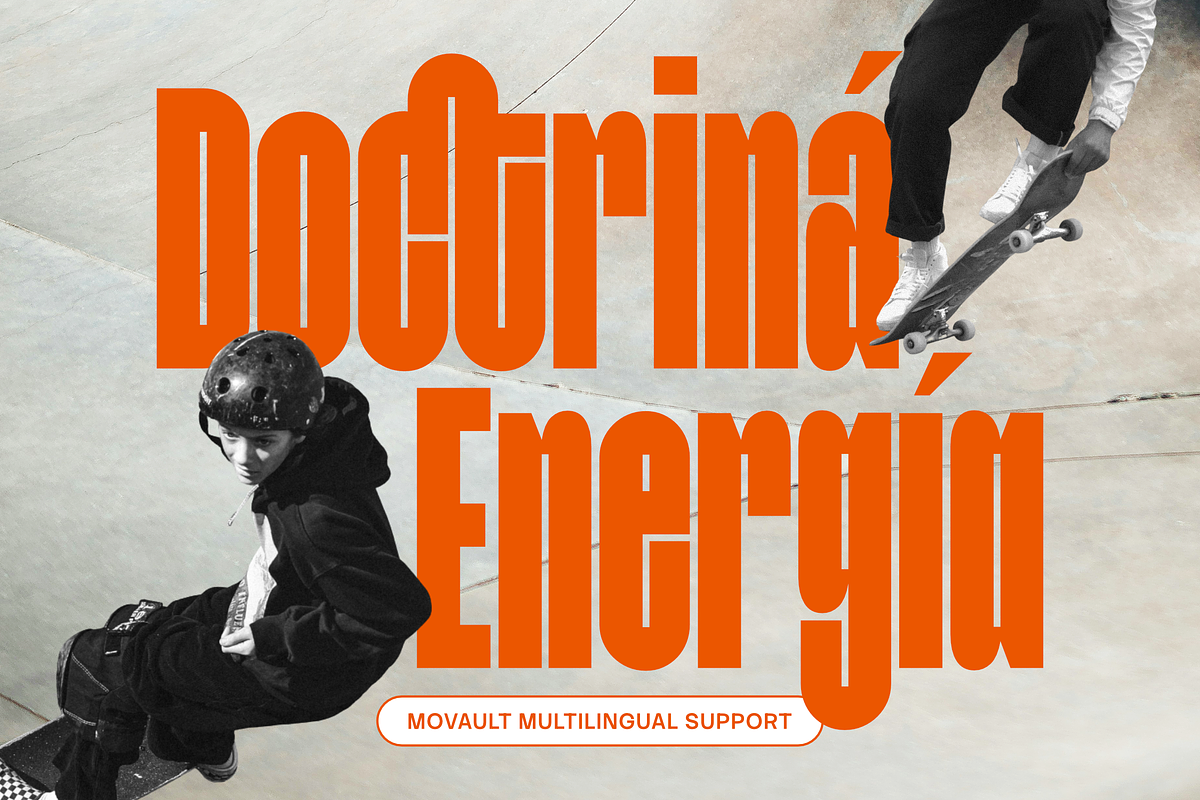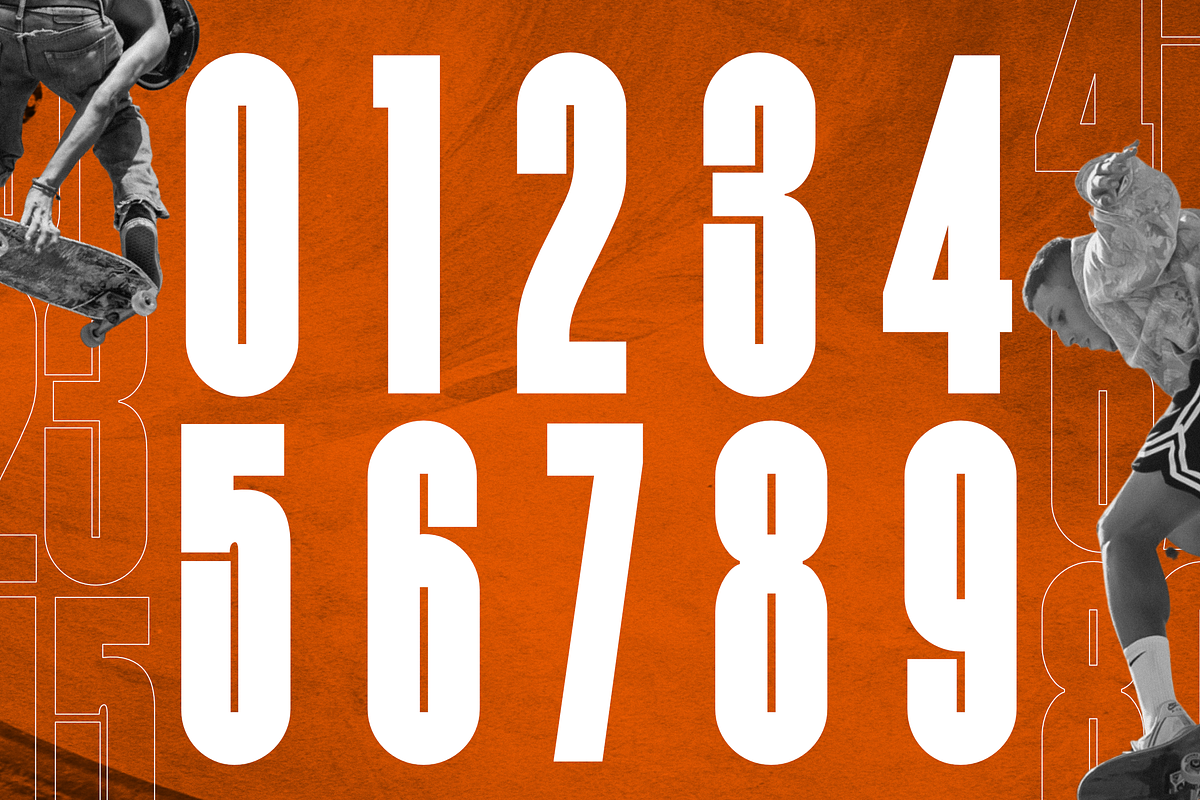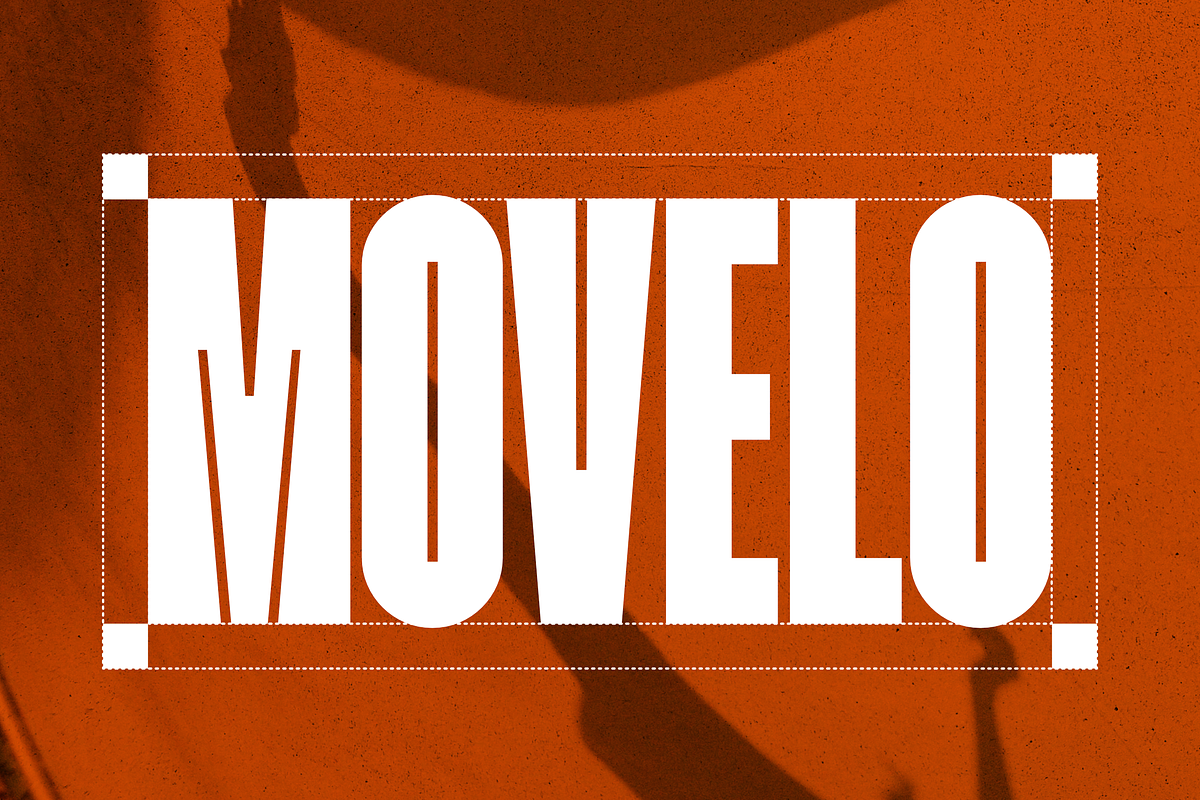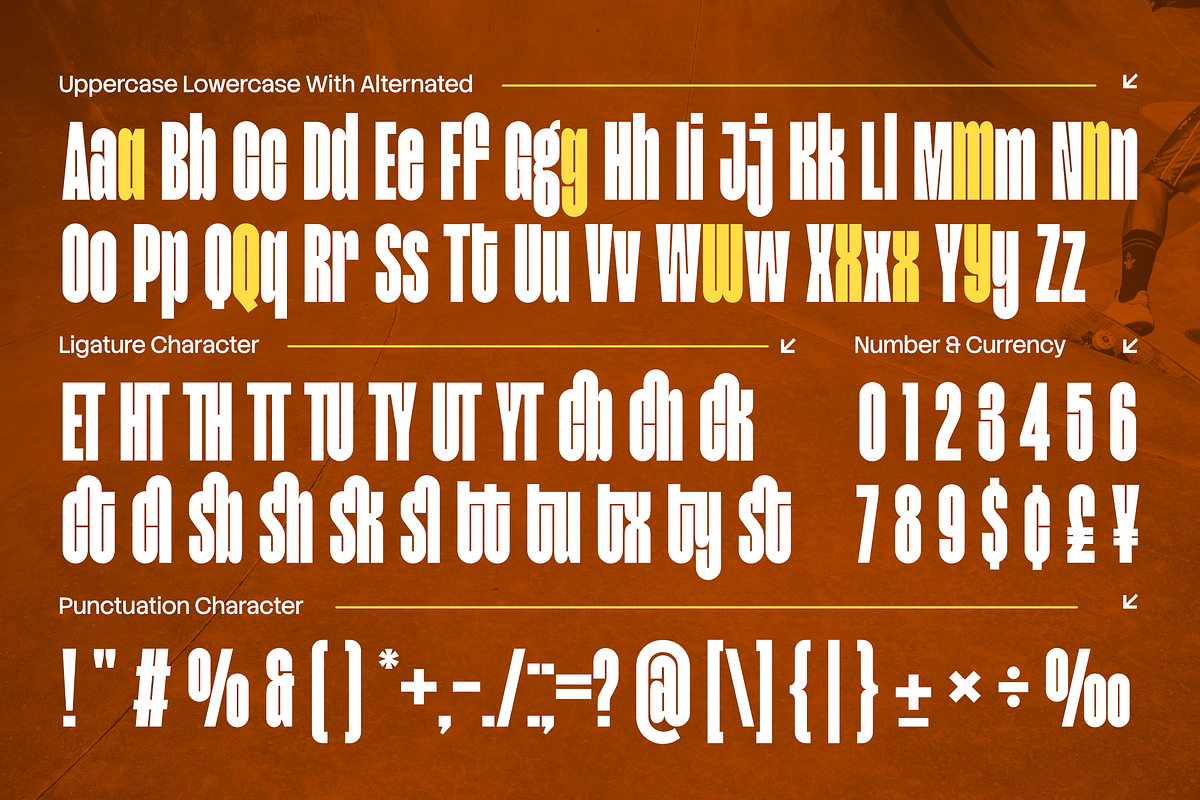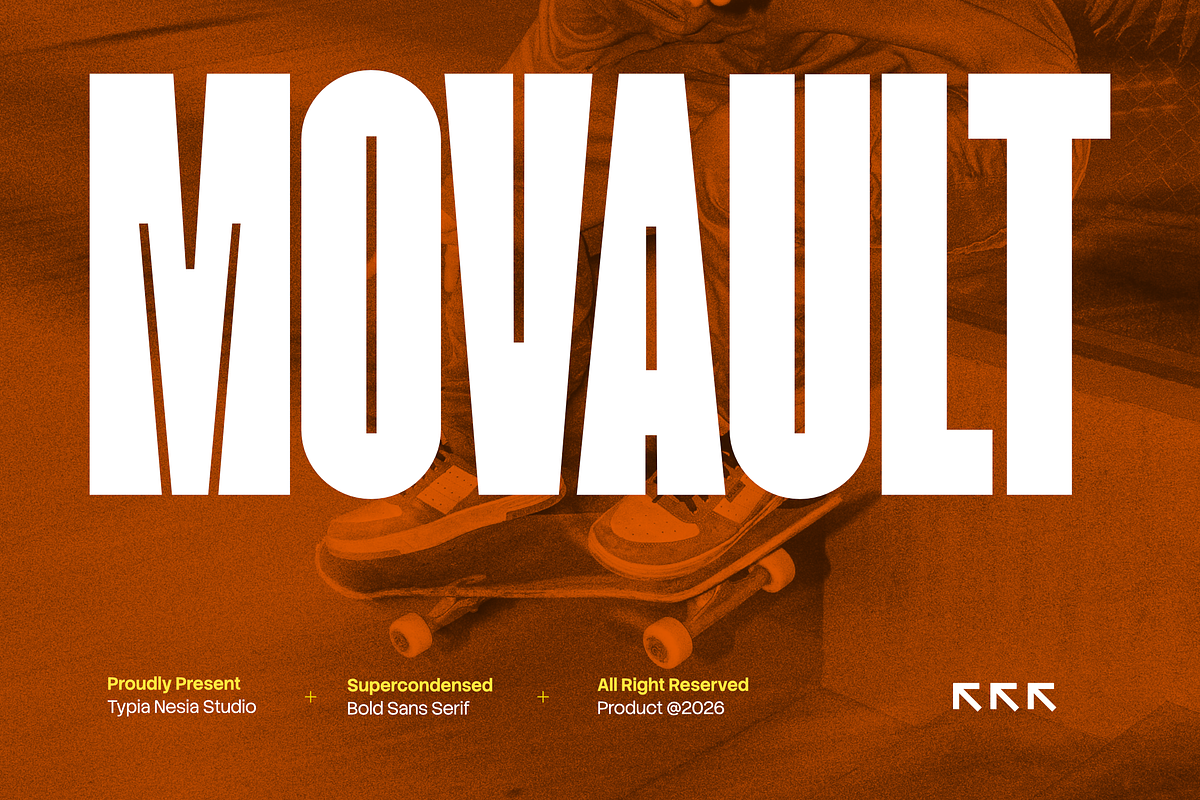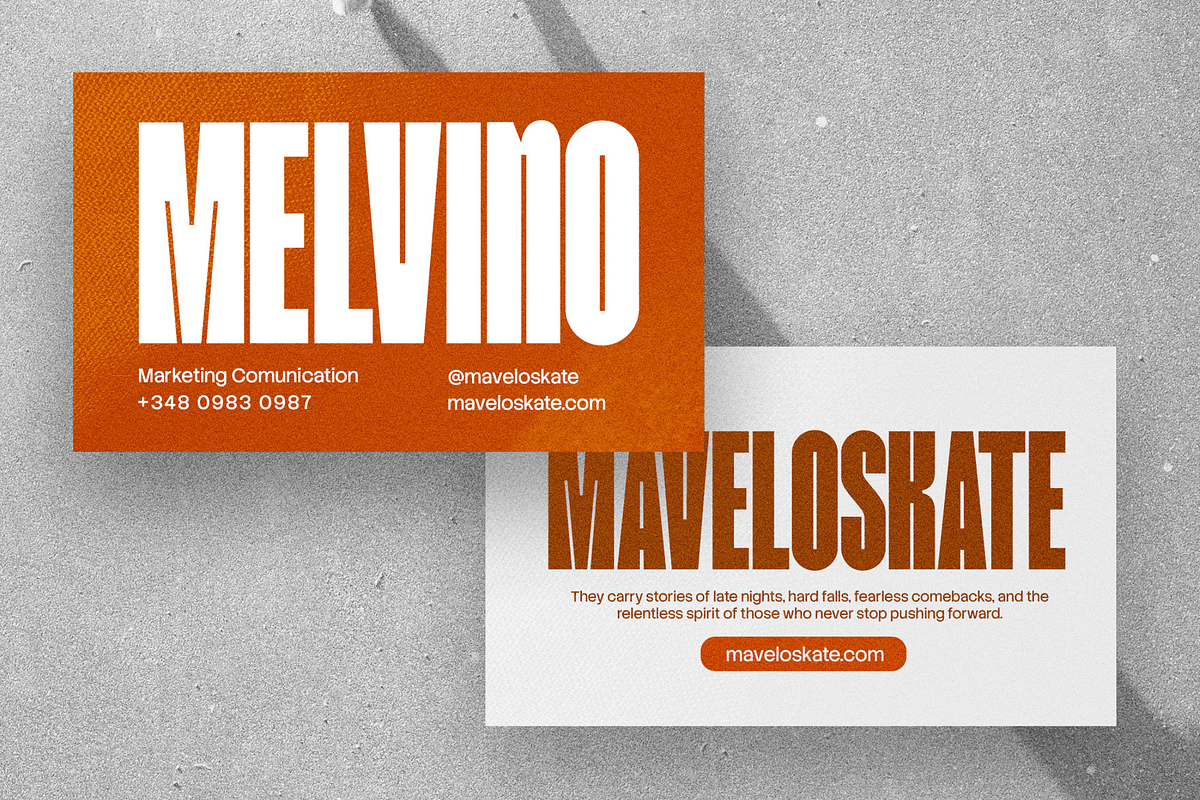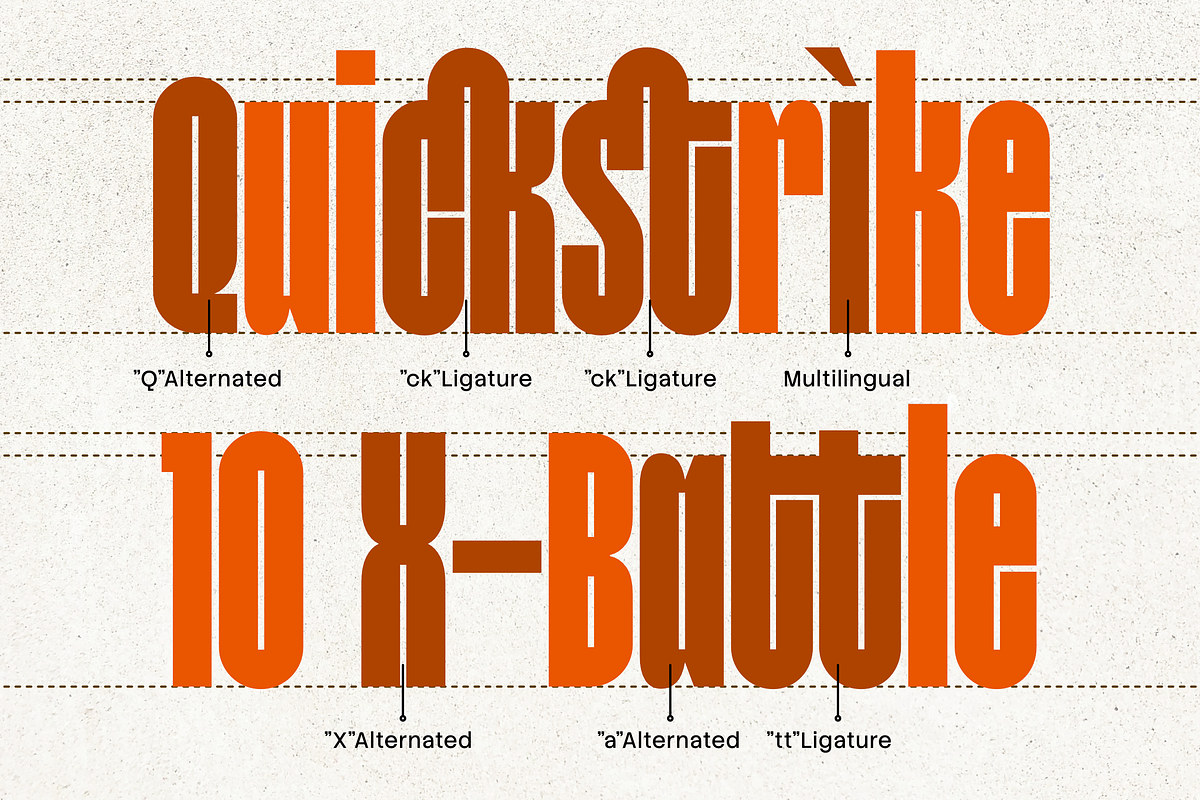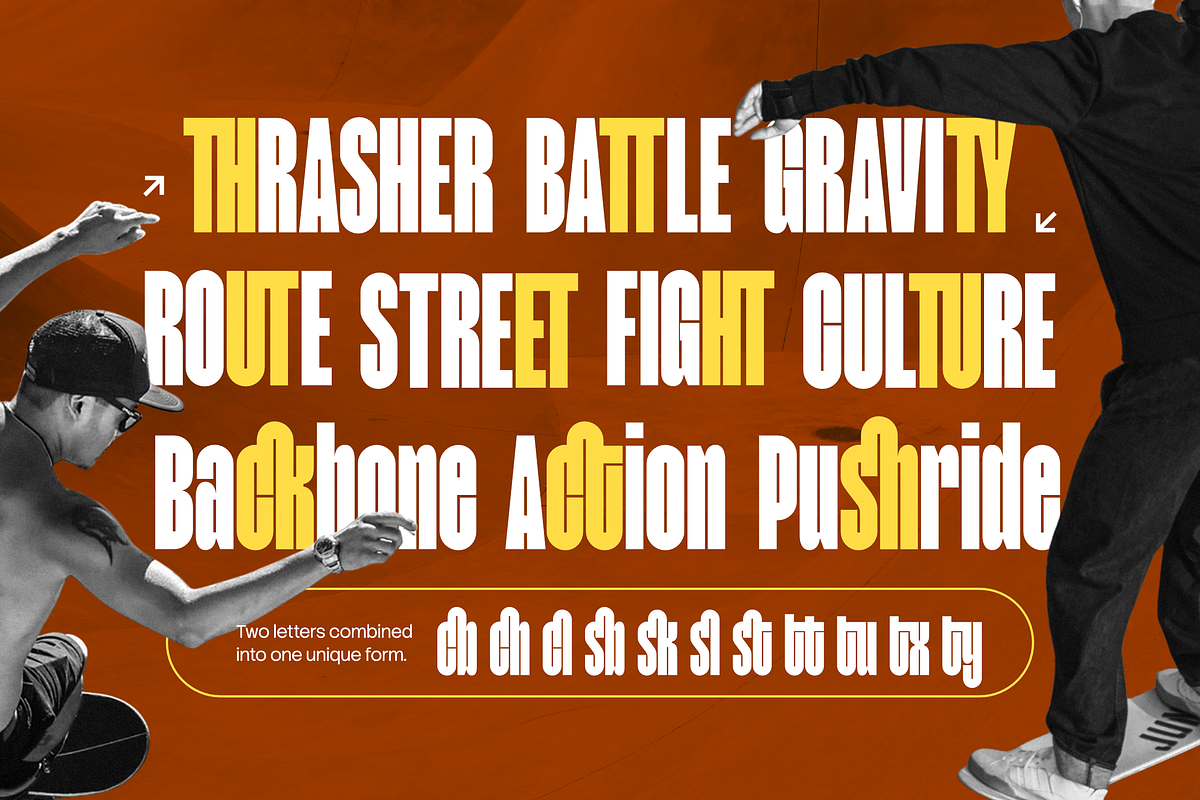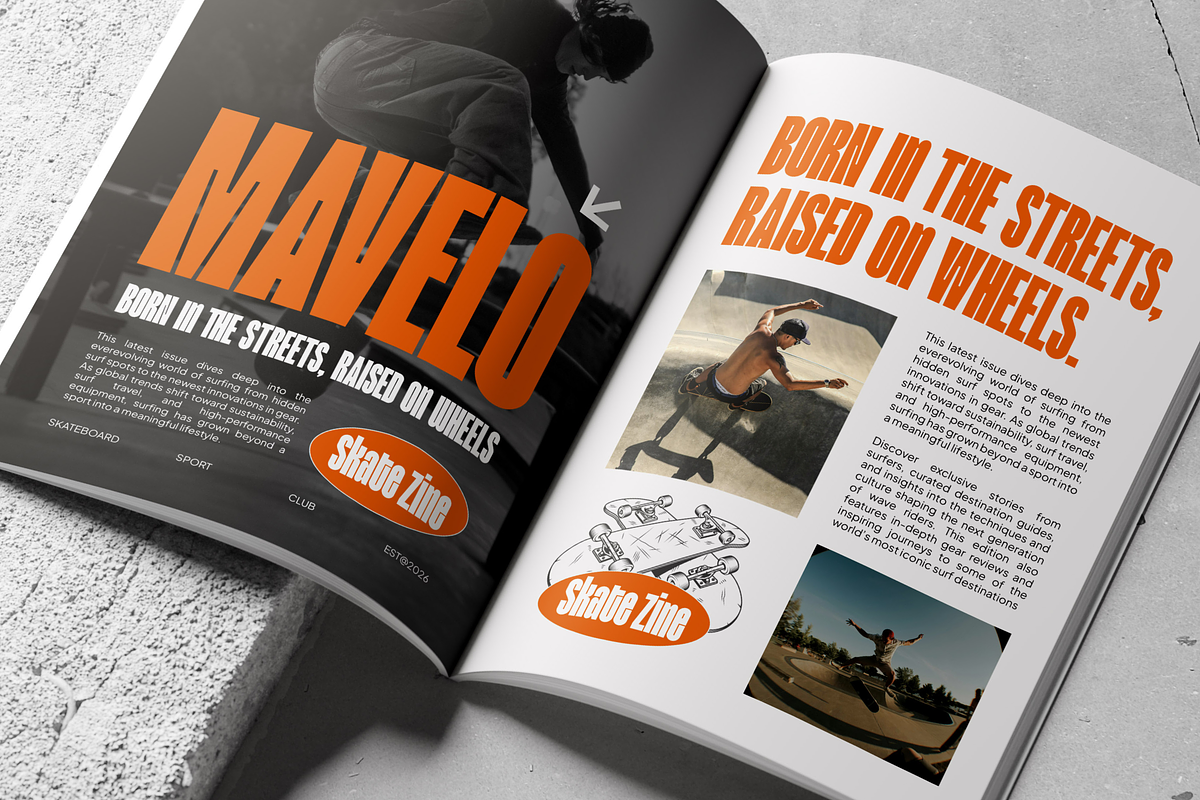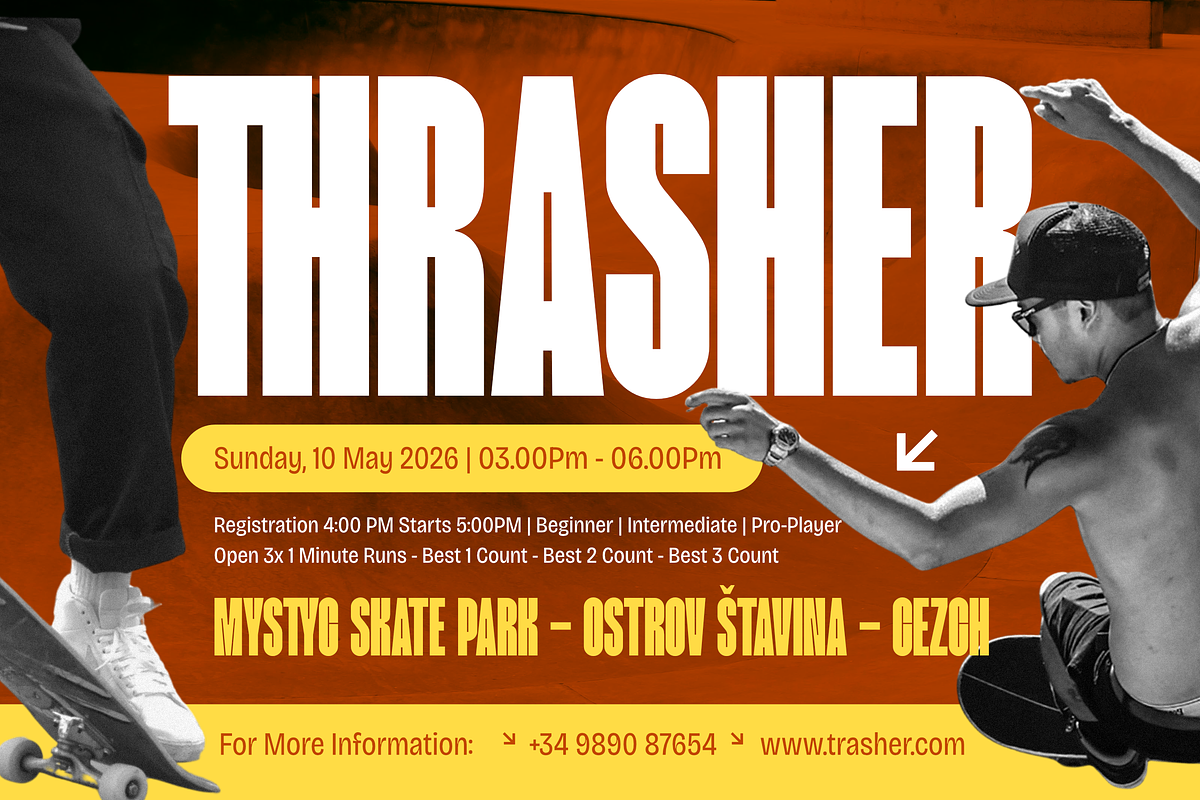
Movault – Bold Super Condensed Sans
Movault – Bold Super Condensed Sans - Modern Minimal Clean Display Font
Movault is a bold super condensed sans serif font designed with a modern minimalist style and a strong futuristic character. Featuring tall proportions, clean geometric shapes, and compact spacing, it is ideal for logos, wordmarks, logotypes, posters, advertising, corporate branding, tech-inspired visuals, and any project that needs a touch of powerful visual impact and professional appearance. The clean sans serif construction, combined with futuristic sci-fi and techno aesthetics, creates a modern identity that feels sharp, innovative, and confident. Whether used for digital interfaces or bold promotional layouts, Movault ensures strong readability and a standout presence.
Create bold futuristic impact with Movault.